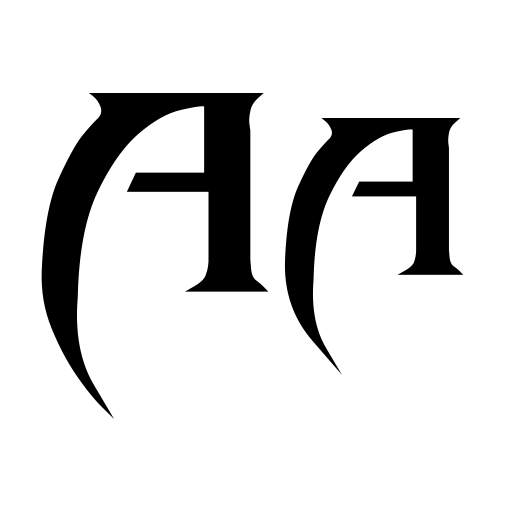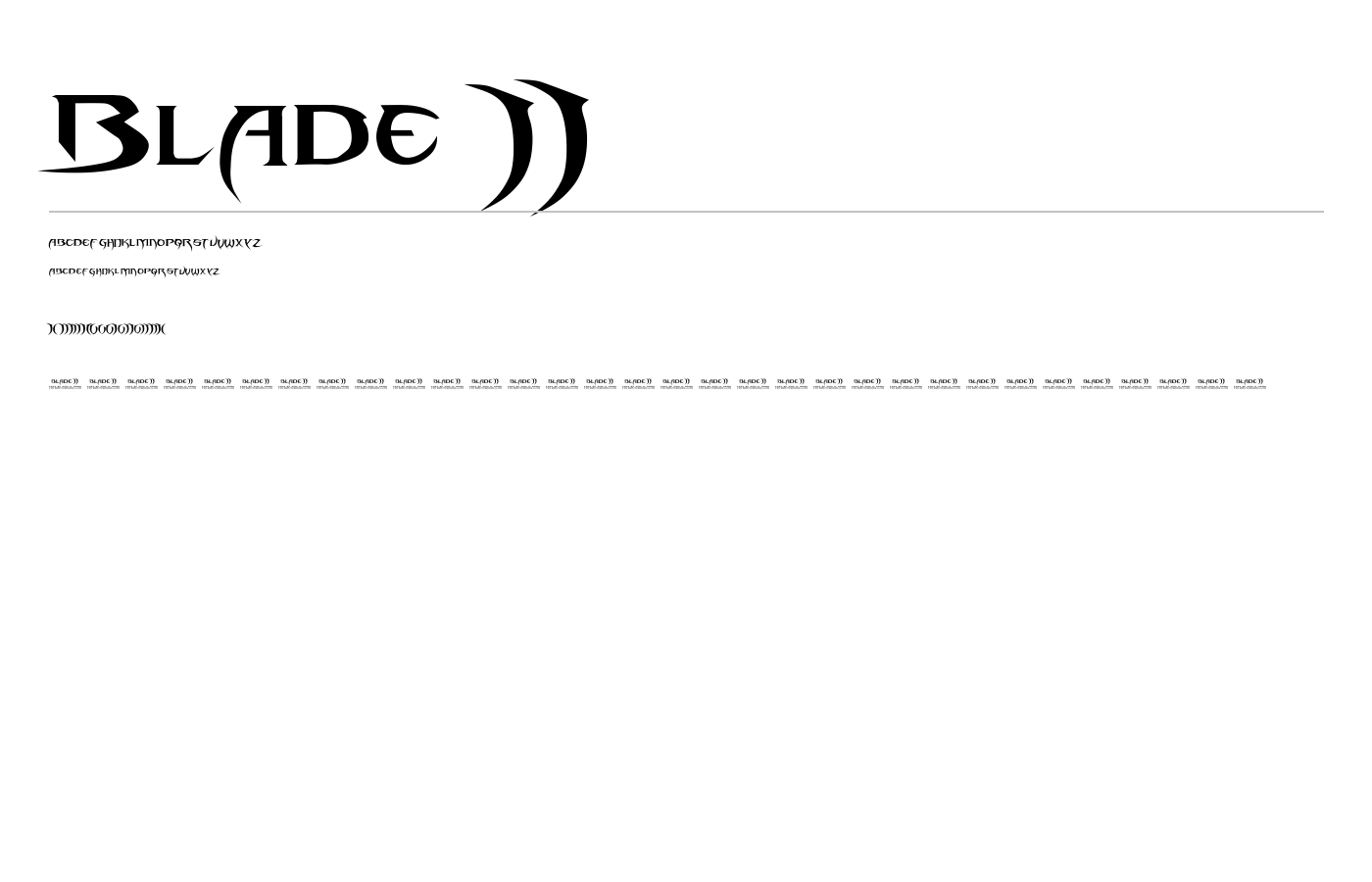
Blade 2 is a bold, decorative serif font with sharp, angular strokes that evoke a sense of edge and intensity. Its high contrast and stylized letterforms give it a dramatic, futuristic feel, making it ideal for logos, posters, and branding that require a strong, dynamic presence. This font suits projects aiming for a modern, adventurous, or sci-fi inspired mood.
Blade 2 Font
About Blade 2 Font